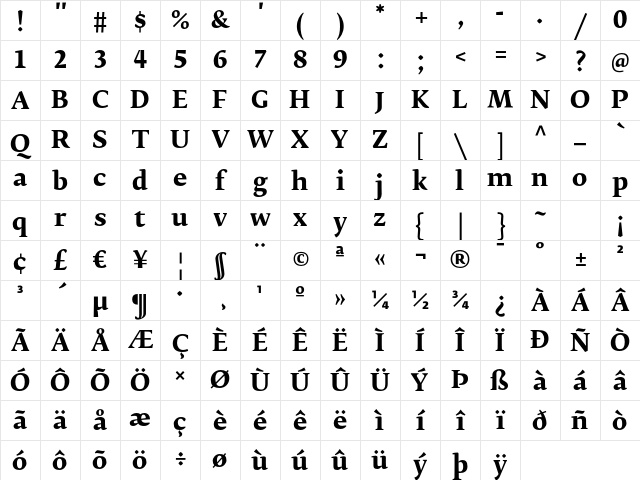
FedraSerifB BoldTF
Style: BoldTF
FedraSerifB Family
Complete FedraSerifB BoldTF glyph index. Displaying only characters natively supported by FedraSerifB BoldTF font.
Design Context for FedraSerifB
FedraSerifB carries the refined structure of traditional serif typography, with bracketed terminals and considered proportions that communicate credibility and craft. Its bold stroke weight gives it real presence on the page.